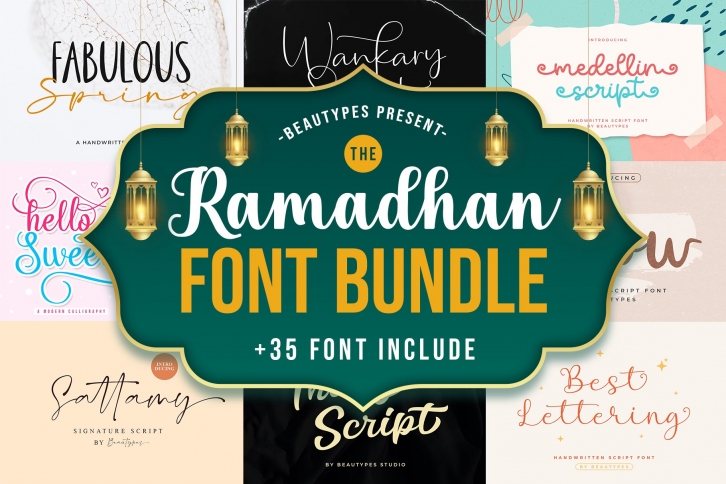
The Ramadhan Bundles is a trendy and unique font with an authentic style. It was designed by BeauTypes and it's a great choice for creative people who need such a font. It was released on April 2, 2022 and the file size is 20.73 MB. The Ramadhan Bundles will add an organic vibe to any design idea!